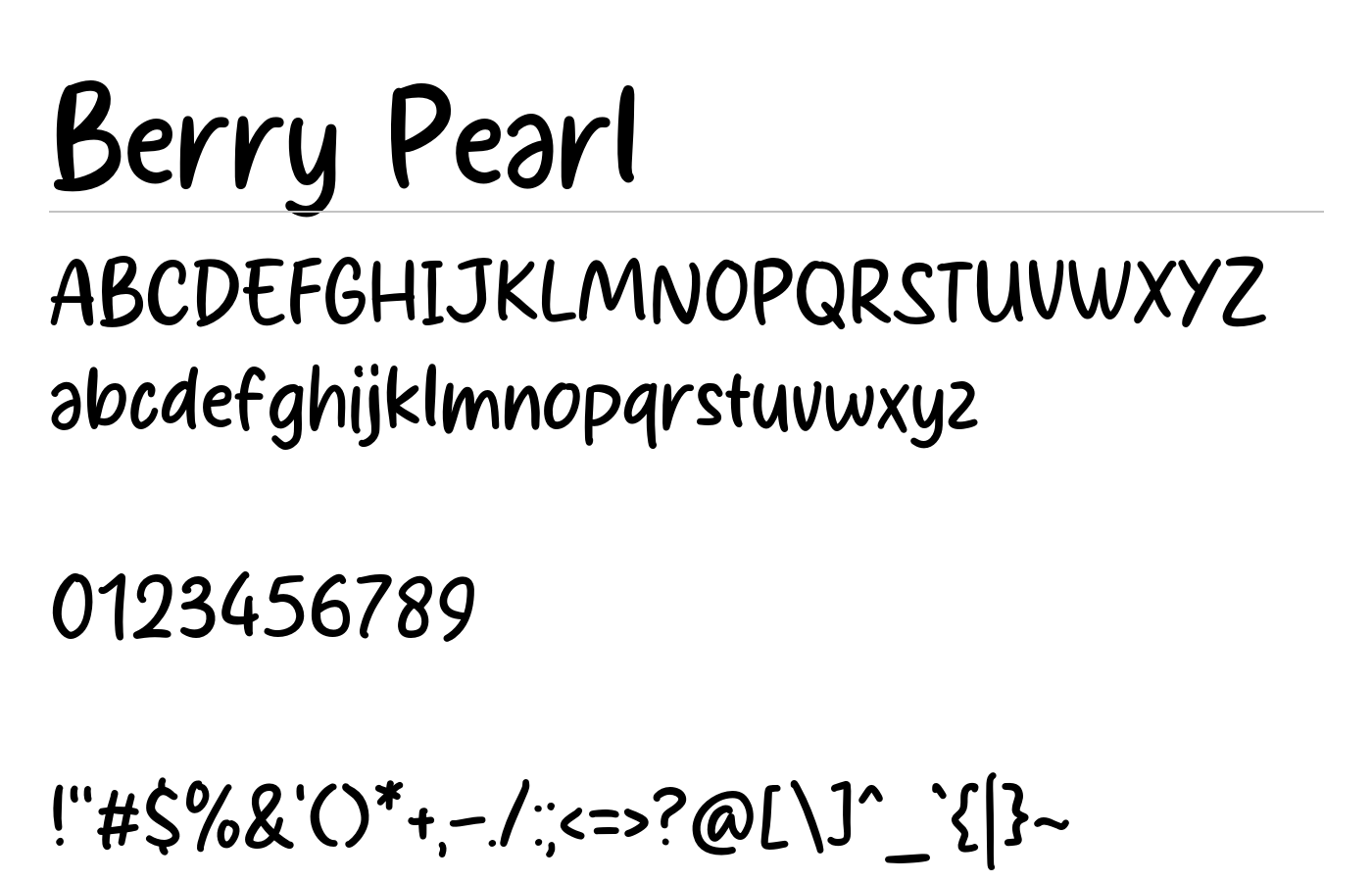
Berry Pearl is a playful and casual handwritten sans serif font characterized by its rounded, friendly letterforms and moderate weight that feels approachable yet clear. Its lively, slightly irregular strokes and open shapes create a warm, informal personality perfect for fun branding, children’s materials, and creative projects where a personal touch is desired. This font works best in headlines, logos, and casual designs that benefit from an inviting and charming handwritten style.
Berry Pearl Font
About Berry Pearl Font